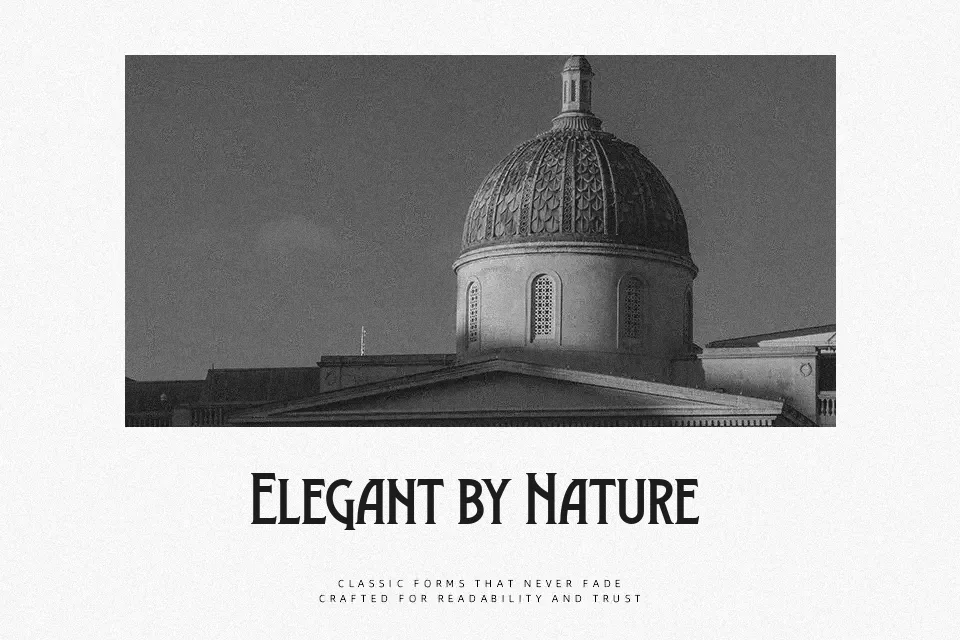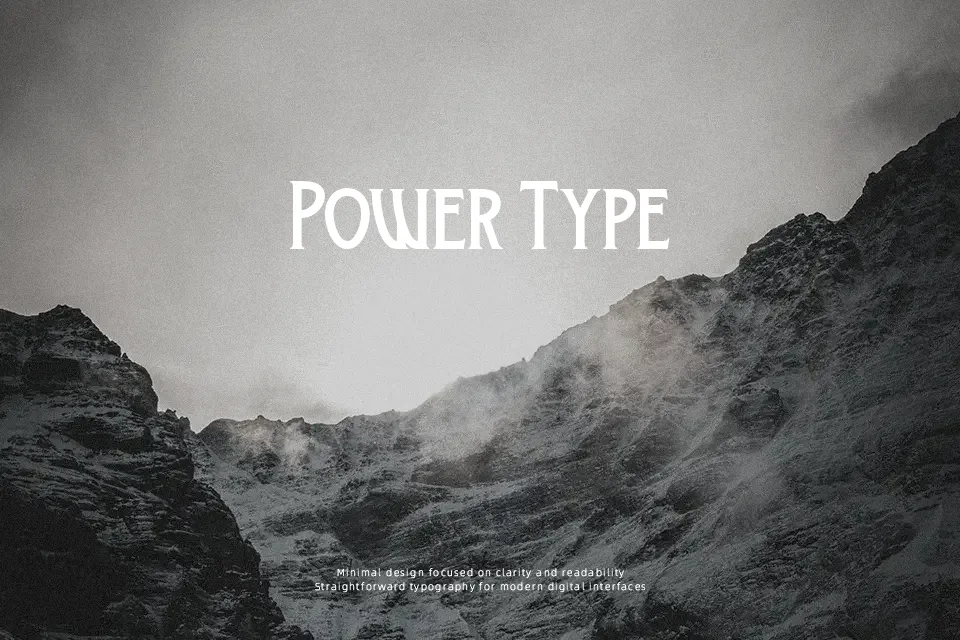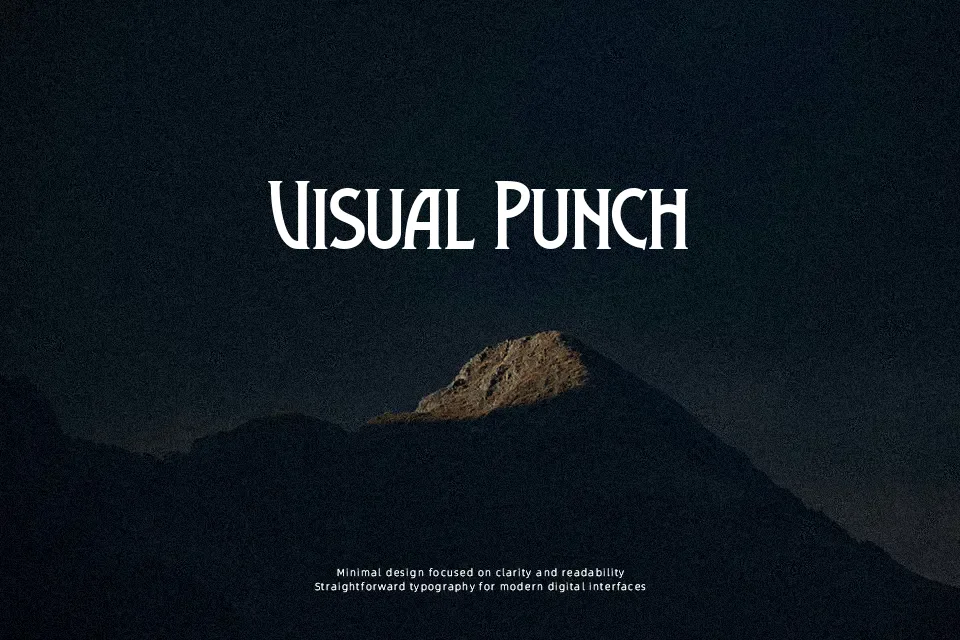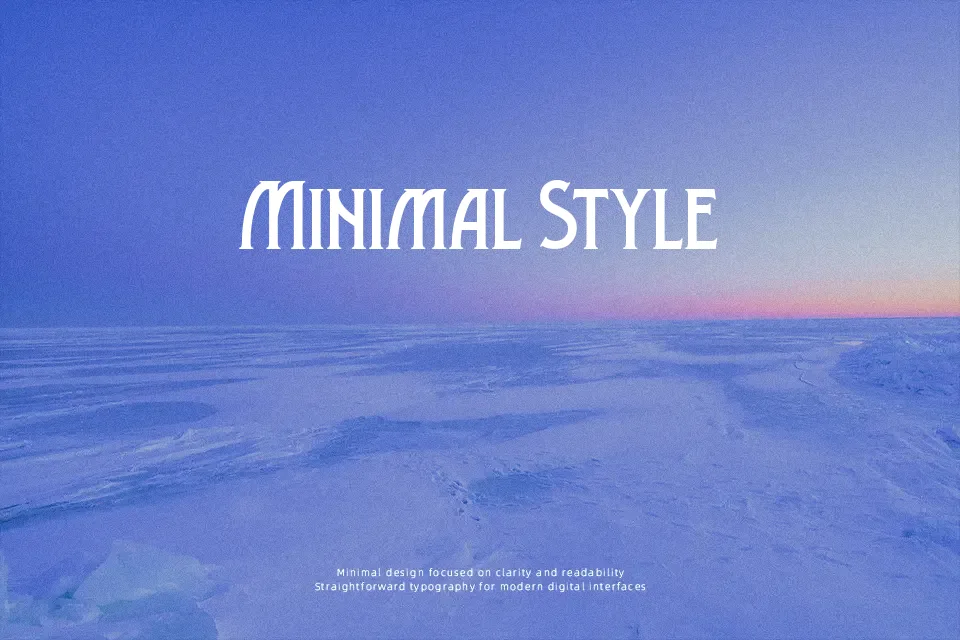
Vallely Font
Vallely Font establishes an authoritative display tone through high stroke contrast, disciplined vertical stems, and sculpted serif terminals. The uppercase letterforms display consistent geometric widths, while the lowercase characters maintain clear visual rhythm across short text sequences. Spacing remains moderately tight yet controlled, preventing delicate hairline joins from colliding at prominent headlines. Fine hairline strokes and pronounced horizontal serifs naturally compromise legibility across dense paragraph blocks and reduced screen sizes. In practical display applications, the typeface provides crisp visual definition that commands immediate reader focus across premium merchandise and promotional headers.
Best For: vintage product packaging, editorial headlines, poster titles, apparel graphics
Not Ideal For: continuous reading paragraphs, mobile interface labels, technical documentation, dense spreadsheet data
Perfect for branding, editorial, and headline, with a bold and display style.